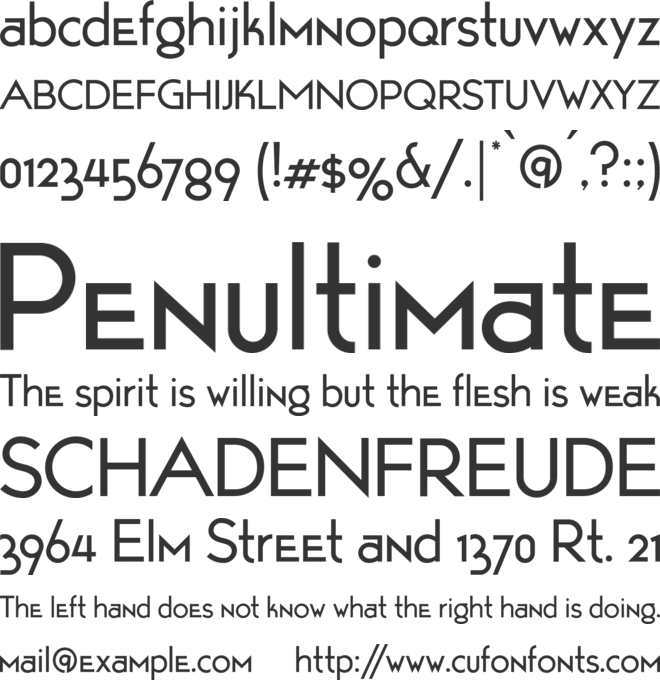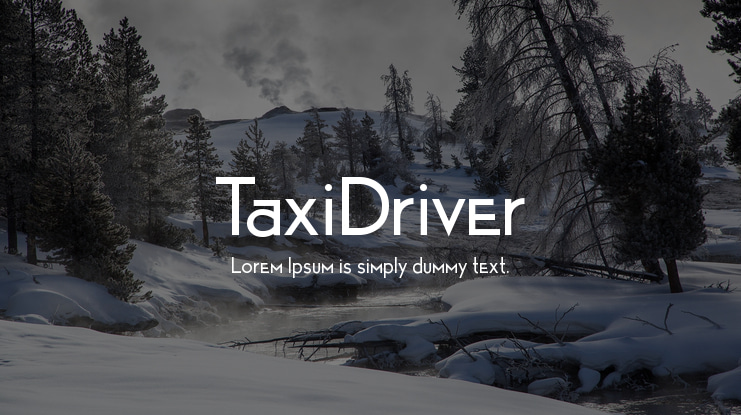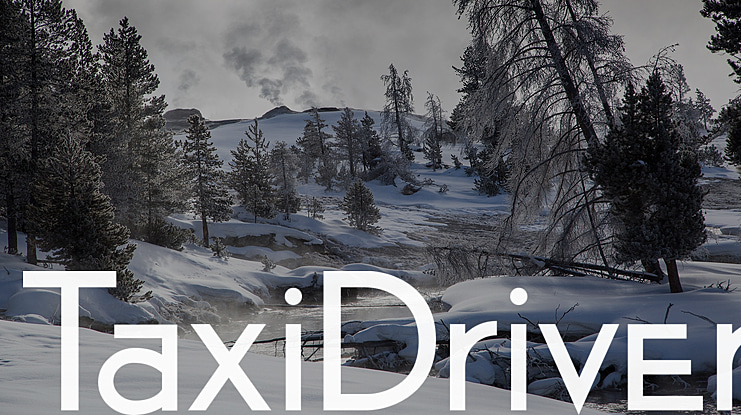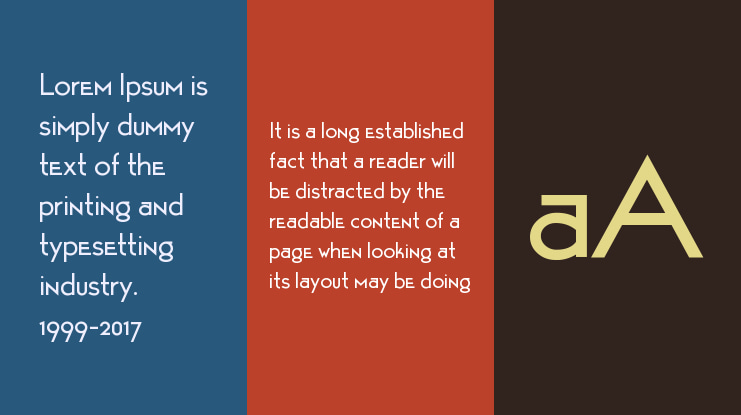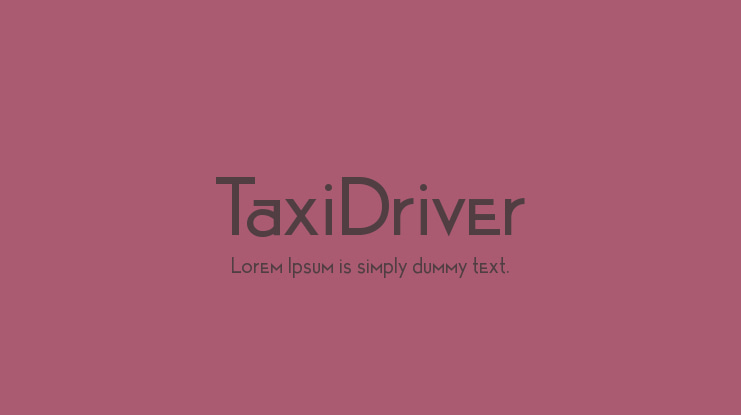
TaxiDriver Font
Carved from the grit and grime of the city streets, a vigilante font bent on justice, head down walking, waiting until the time is right to move. Steam rises from sidewalk grates, the cold wind bites, another day in the big time passes. Inspired by deco coffee cans and window lettering of a bygone era.